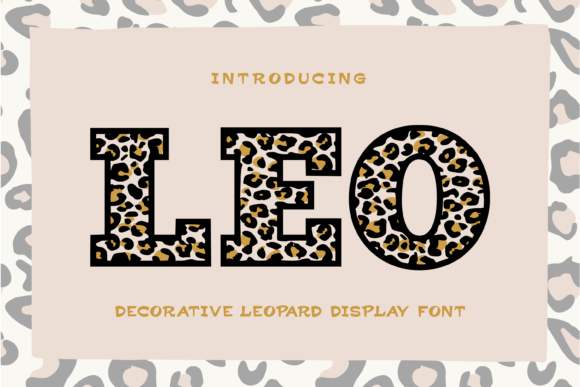
Introducing Leo Font, the captivating display font that captures the allure of a leopard's grace. Its unique spotted pattern adds an exotic touch to your designs, making it the perfect choice for name tent cards, stickers, t-shirts, and POD designs.
With Leo Font, your designs will leap off the screen, commanding attention and captivating hearts. Its bold and stylish presence will make your work stand out from the crowd, leaving an unforgettable impression.
Express your creativity with Leo Font and unleash your inner designer. Its versatility knows no bounds, letting you explore endless possibilities. Whether it's adding a touch of the wild to your branding or creating eye-catching designs for commercial use, Leo Font empowers you to bring your visions to life.
Immerse yourself in a world of design excellence with Leo Font. Experience the thrill of seeing your creations transform with its spotted charm. Download Leo Font today and unlock the endless possibilities it holds.